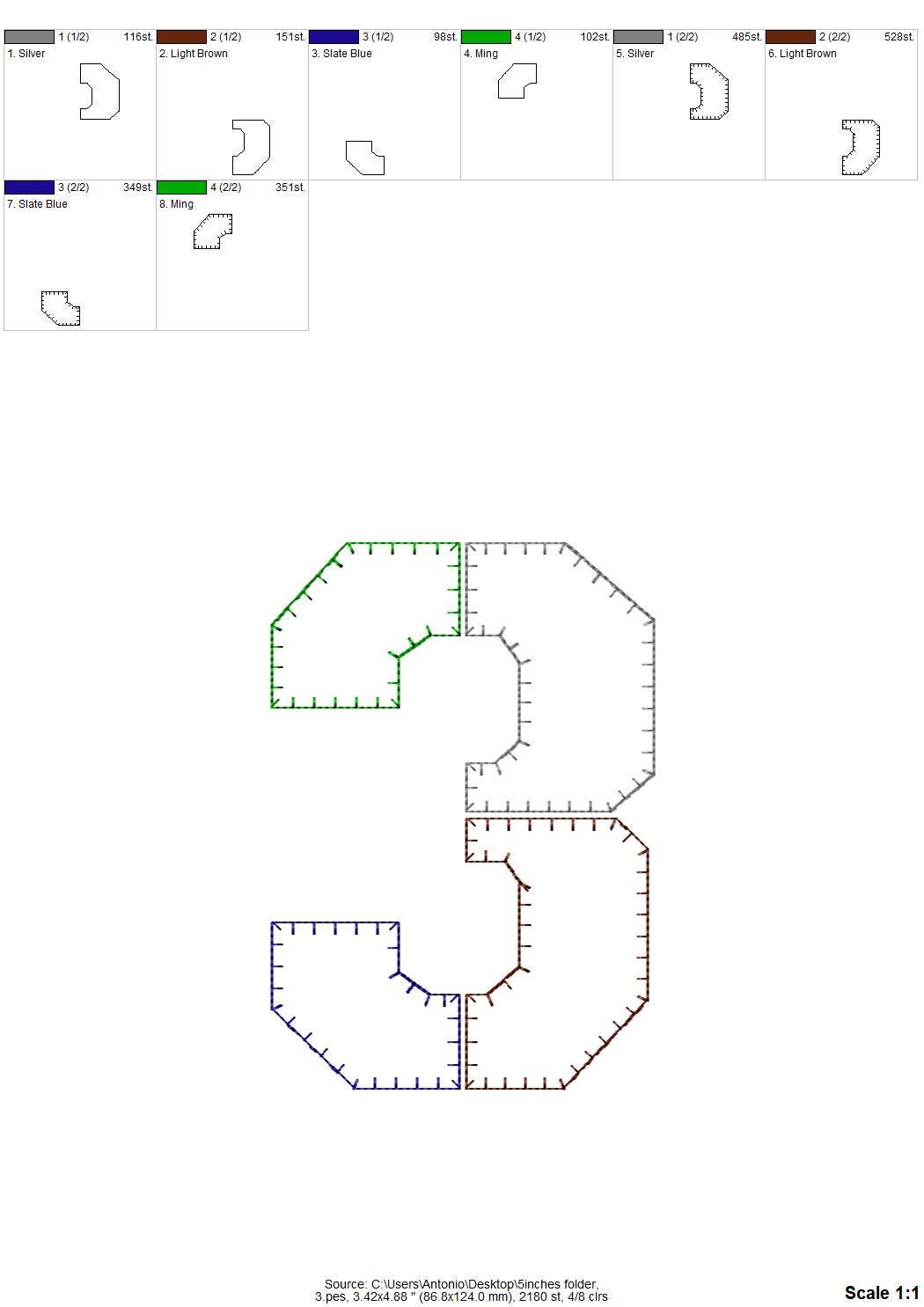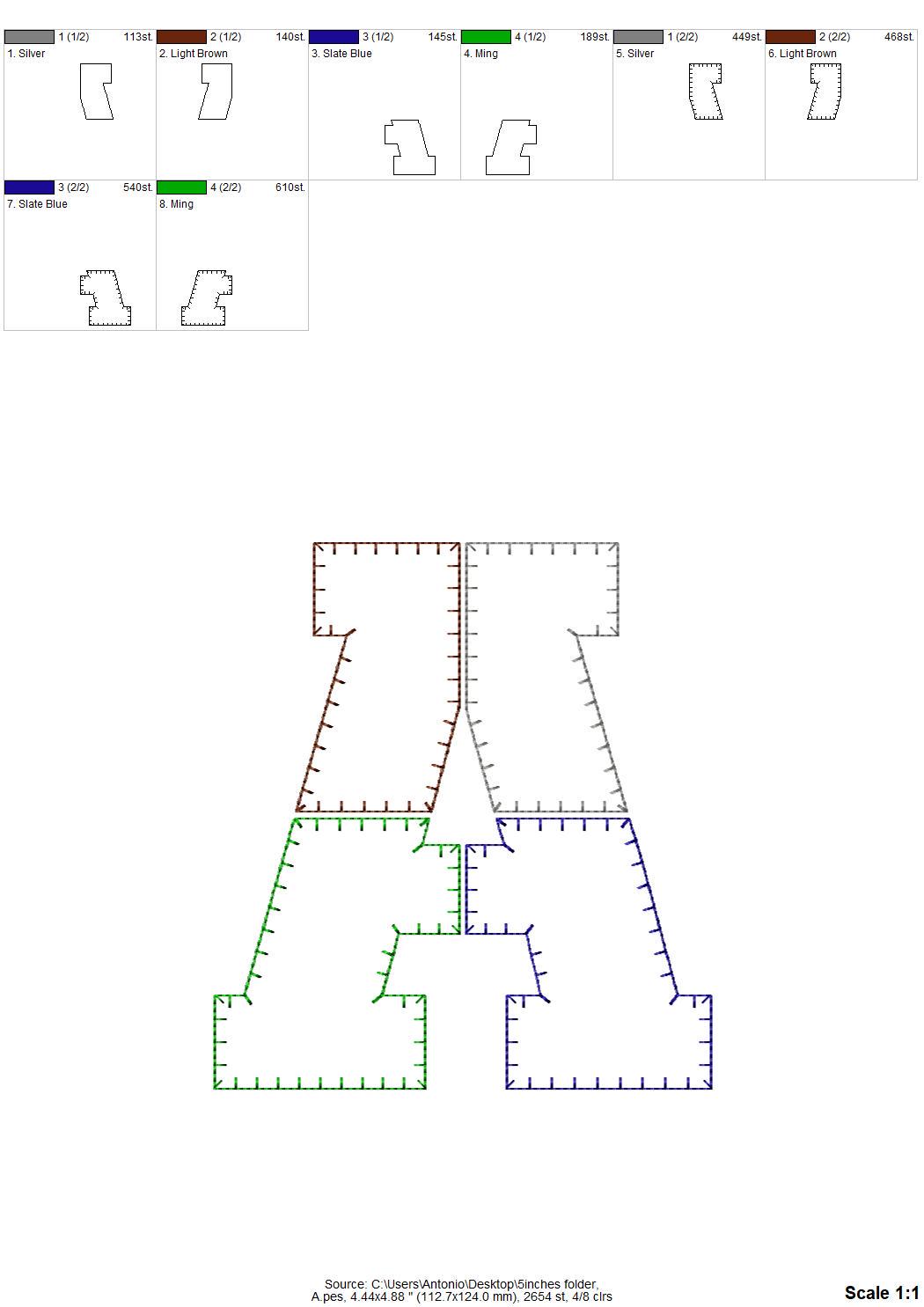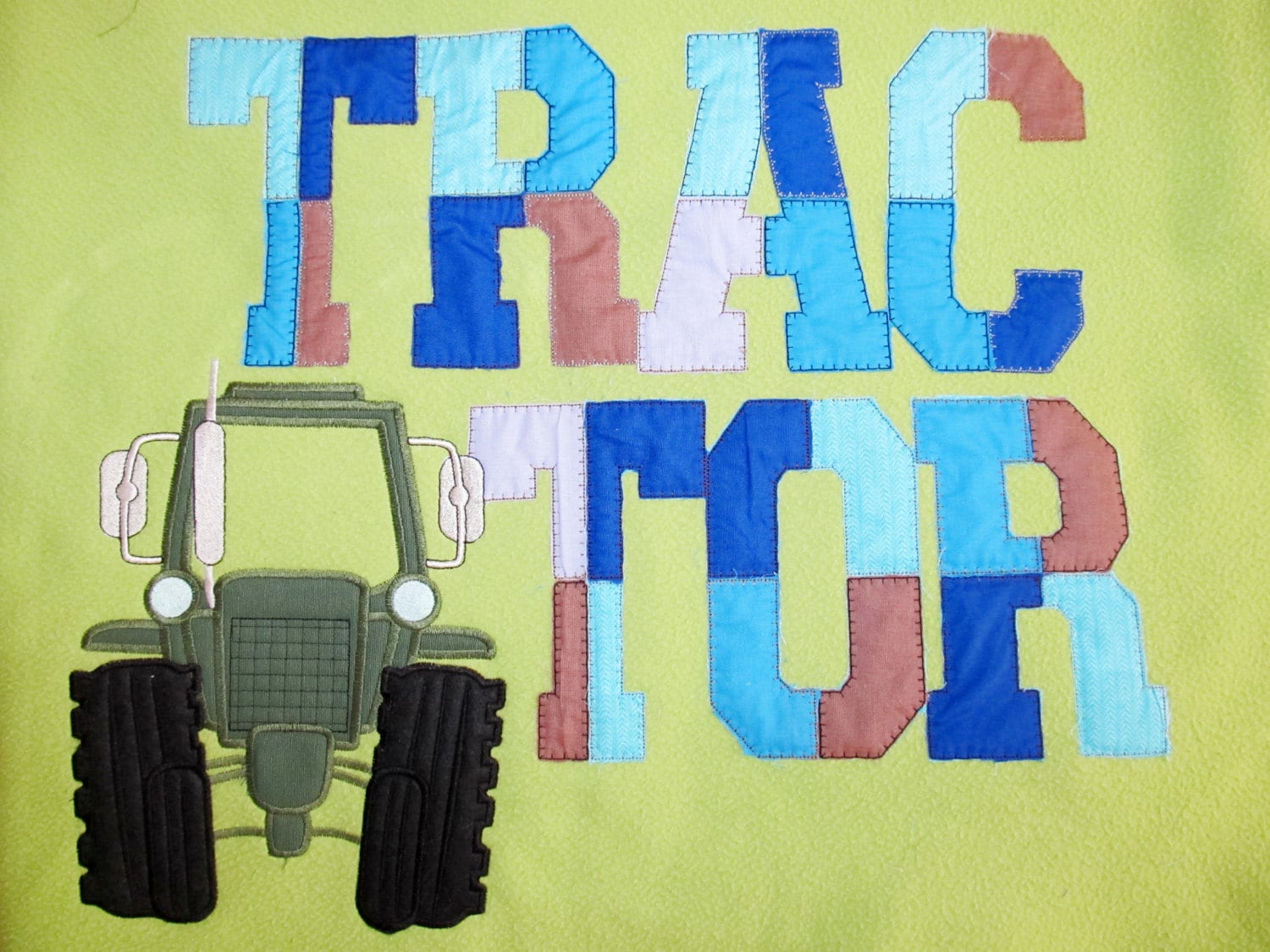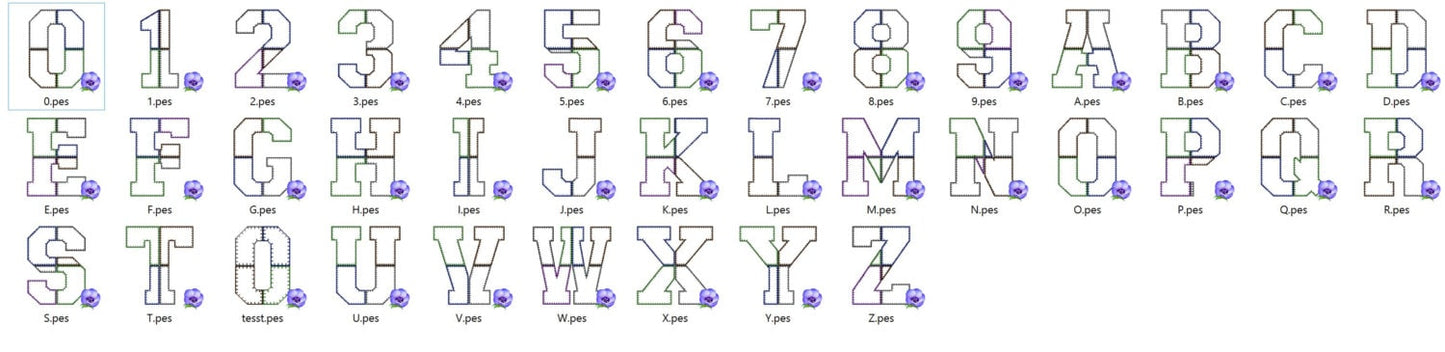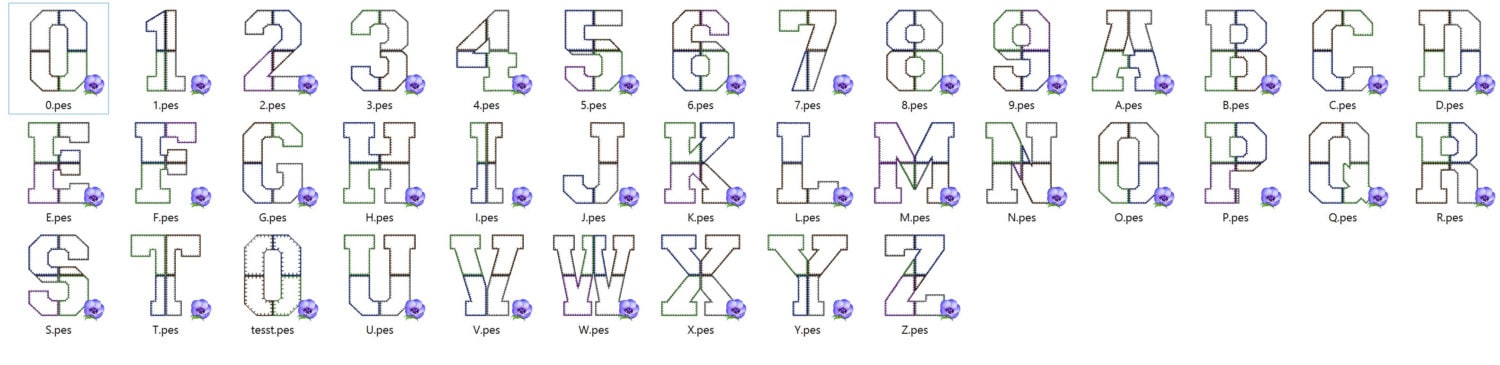
Simply 4 Way Patchwork Applique Font
The letters come in five heights: 3, 4, 5, 6 and 7 inches. Each letter is split into four patchwork sections; placement lines show where each fabric goes, then clean tack-down seams hold it with open, raggedy edges. Includes capital letters A to Z and numbers 0 to 9.
- 4-way patchwork raggedy applique font
- Uppercase A to Z, numbers 0 to 9
- 5 sizes: 3, 4, 5, 6 and 7 in